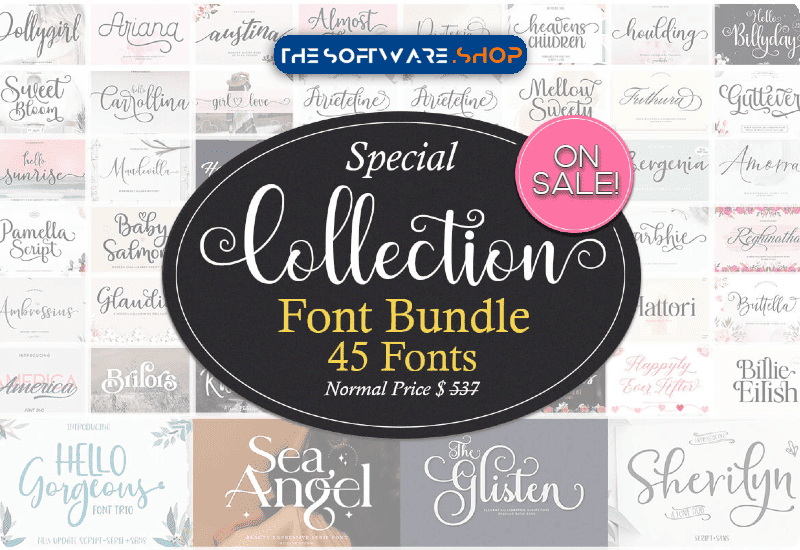
The world of design is an ever-evolving canvas, where creativity knows no bounds. In this digital age, the right fonts are akin to a painter’s palette, allowing artists to bring their visions to life. Enter the Special Collections Font Bundle Set by Zane Studio, a compilation of 45 extraordinary fonts that promises to be a game-changer for designers, artists, and crafters.
Why Special Collections Font Bundle Set Matters
Quality fonts are the backbone of any design project. They can evoke emotions, convey messages, and transform ordinary creations into masterpieces. The Special Collections Font Bundle Set is more than just a collection of fonts; it’s a ticket to boundless creativity. What sets it apart is not only its sheer size but also the diversity in styles it offers. This bundle empowers you to experiment, take risks, and let your imagination run wild.
Exploring the Premium Fonts
The heart of this bundle lies in its premium fonts. These are not your run-of-the-mill typefaces; they are carefully crafted works of art. Let’s take a closer look at a few standout fonts from the collection:
- The Glisten Fuentes Caligráficas Font: This font exudes elegance and sophistication, making it perfect for high-end projects like wedding invitations and branding.
- Heavens Children Duo Script & Handwritten Font: A blend of script and handwritten styles, ideal for personalizing greeting cards and invitations.
- Soffia Script Script & Handwritten Font: Versatile and flowing, suitable for a wide range of projects, from logos to social media graphics.
List of Premium Fonts included in this bundle:
- The Glisten Fuentes Caligráficas Fuente Por Zane Studio
- Heavens Children Duo Script & Handwritten Font
- Soffia Script Script & Handwritten Font
- Sea Angel Serif Font
- Billie Eilish Serif Font
- Hangberd America Duo Script & Handwritten Font
- Brilors Serif Font
- Ariana Script Script & Handwritten Font
- Sherilyn Duo Script & Handwritten Font
- Botton Love Duo Script & Handwritten Font
- Almost There Script & Handwritten Font
- Bergenia Duo Script & Handwritten Font
- Amorra Script Script & Handwritten Font
- Alvia Script & Handwritten Font
- Gorgeous Duo Polices de Caractères Police
- Girl Love Script & Handwritten Font
- Fallery Script Script & Handwritten Font
- Gorgeous Script & Handwritten Font
- Pamella Script Script & Handwritten Font
- Sweet Bloom Script & Handwritten Font
- Hello Billyday Script & Handwritten Font
- Futhura Script Script & Handwritten Font
- Mellow Sweety Script & Handwritten Font
- Happyly Ever After Script & Handwritten Font
- Guttever Script & Handwritten Font
- Ratherbe Script & Handwritten Font
- Dollygirl Script & Handwritten Font
- Arbhie Script & Handwritten Font
- Gloriya Script & Handwritten Font
- Spalding Script & Handwritten Font
- Lamplinght Script & Handwritten Font
- Reghinatha Script Script & Handwritten Font
- Beauty Moon Script Script & Handwritten Font
- Jamarius Script & Handwritten Font
- Houlding Script & Handwritten Font
- Buttella Script Script & Handwritten Font
- Ariteline Script Script & Handwritten Font
- Bloshoming Script & Handwritten Font
- Mandevilla Script Script & Handwritten Font
- Hangberd Script Script & Handwritten Font
- Ambrossius Script Script & Handwritten Font
- Austina Script Script & Handwritten Font
- Hello Carrollina Script & Handwritten Font
- Baby Salmon Script Script & Handwritten Font
- Distoria Script Script & Handwritten Font
How to Use These Fonts
The possibilities are endless with the Special Collections Font Bundle Set. Here are some practical tips and inspiration for designers and crafters:
- Business Cards: Create business cards that leave a lasting impression.
- Social Media Graphics: Catch your audience’s eye with stunning social media graphics.
- Invitations: Set the perfect tone for your event with beautifully designed invitations.
- Logos: Craft memorable and unique logos for your brand.
- Websites: Engage and captivate your audience with stunning website designs.